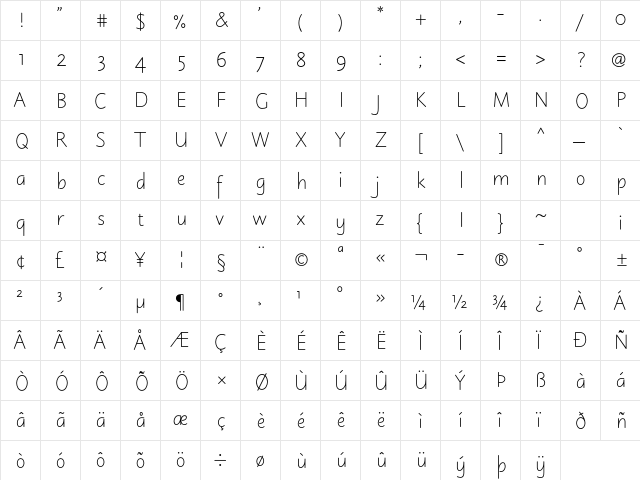
Julius Primary Std Light
Design Context for Julius Primary Std Typeface
Julius Primary Std takes a measured approach to typography — its balanced proportions and neutral character make it a reliable workhorse for both digital and print work. Its slender proportions lend an understated elegance to any composition.